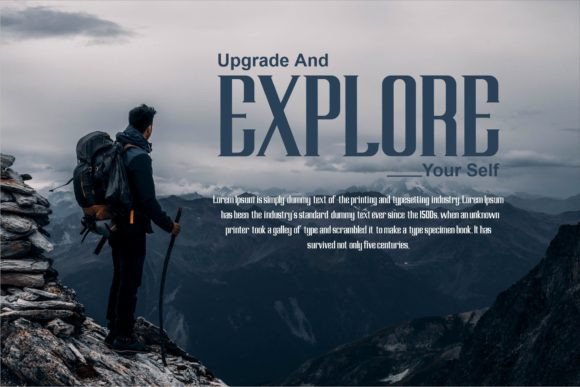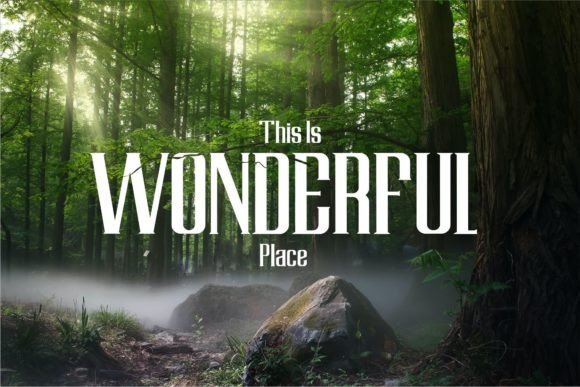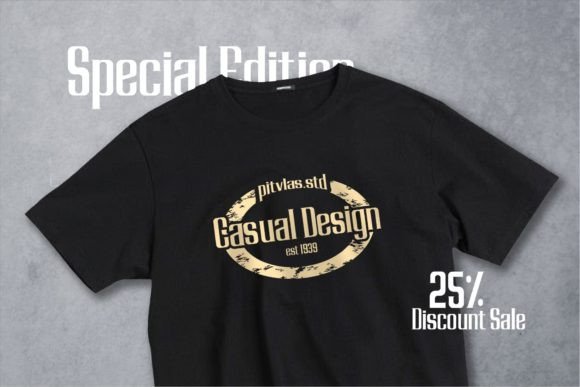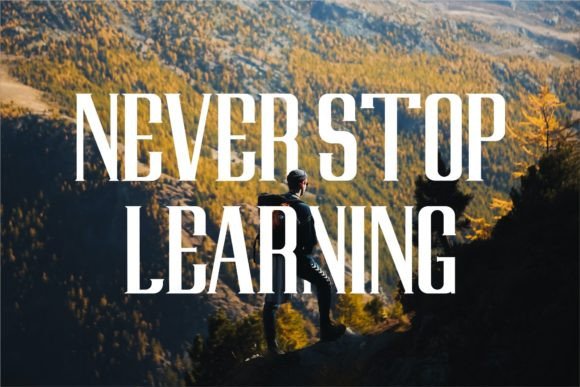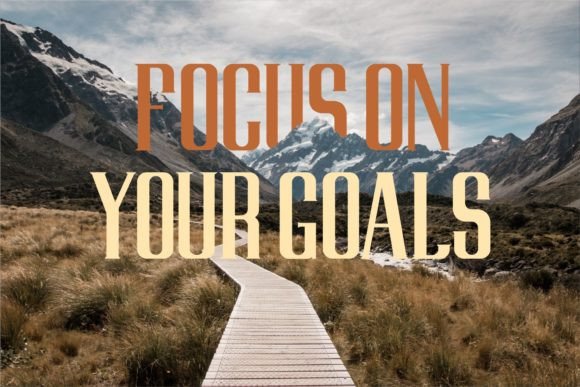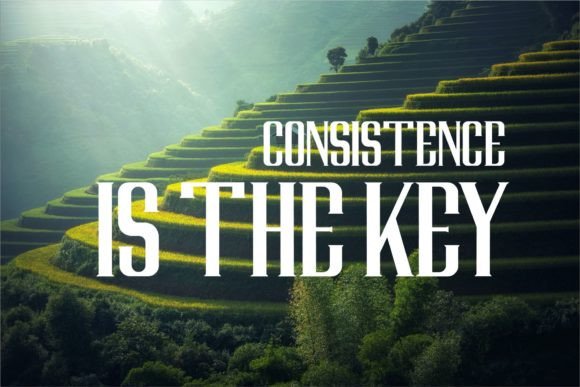
Gedang Kluthuk Font: Elevate Your Designs with a Modern Display Font
In the world of design, typography plays a crucial role in conveying messages, evoking emotions, and creating visual identities. For designers and crafters looking for a font that exudes strength and modernity, Gedang Kluthuk is an excellent choice. This modern display font is designed to make your designs look perfect, and its strong character ensures that your message is conveyed with confidence.
What is Gedang Kluthuk Font?
Gedang Kluthuk is a modern display font that boasts a unique and robust character. Its design is inspired by the beauty of natural elements, making it an ideal choice for designs that require a strong and adventurous feel. The font’s distinctive style is perfect for creating eye-catching designs that stand out from the crowd.
Key Features of Gedang Kluthuk Font
- Strong Character: Gedang Kluthuk’s strong character makes it perfect for designs that require a bold and adventurous feel.
- Modern Design: The font’s modern design ensures that your designs look contemporary and fresh.
- Versatility: Gedang Kluthuk is a versatile font that can be used for a wide range of design projects, from adventure poster designs to t-shirt designs.
- Natural Backgrounds: The font matches well with natural backgrounds, making it an excellent choice for designs that incorporate outdoor or environmental themes.
Use Cases for Gedang Kluthuk Font
Gedang Kluthuk is a versatile font that can be used for various design projects. Here are some use cases where the font excels:
- Adventure Poster Designs: The font’s strong character and modern design make it perfect for creating eye-catching adventure poster designs.
- T-Shirt Designs: Gedang Kluthuk’s bold and adventurous feel makes it an excellent choice for t-shirt designs that require a statement piece.
- Outdoor and Environmental Designs: The font’s ability to match well with natural backgrounds makes it an ideal choice for designs that incorporate outdoor or environmental themes.
Why Choose Gedang Kluthuk Font?
With so many fonts available, why choose Gedang Kluthuk? Here are some reasons why designers and crafters prefer this modern display font:
- Unique Style: Gedang Kluthuk’s distinctive style sets it apart from other fonts, ensuring that your designs stand out.
- Easy to Read: Despite its bold and adventurous feel, the font is easy to read, making it perfect for designs that require a clear message.
- Customizable: Gedang Kluthuk is a customizable font, allowing you to adjust its size, color, and style to fit your design needs.
Tips for Using Gedang Kluthuk Font
To get the most out of Gedang Kluthuk, here are some tips for using the font:
- Pair with Natural Backgrounds: Take advantage of the font’s ability to match well with natural backgrounds by pairing it with outdoor or environmental themes.
- Experiment with Colors: Gedang Kluthuk’s bold and adventurous feel lends itself well to bright and bold colors.
- Use for Headings: The font’s strong character makes it perfect for headings and titles, where you want to make a statement.
In conclusion, Gedang Kluthuk is a modern display font that offers a unique and robust character, making it perfect for designers and crafters looking for a font that exudes strength and modernity. Its versatility, ease of use, and customizable features make it an excellent choice for a wide range of design projects. Whether you’re creating adventure poster designs, t-shirt designs, or outdoor and environmental designs, Gedang Kluthuk is sure to elevate your designs to the next level.